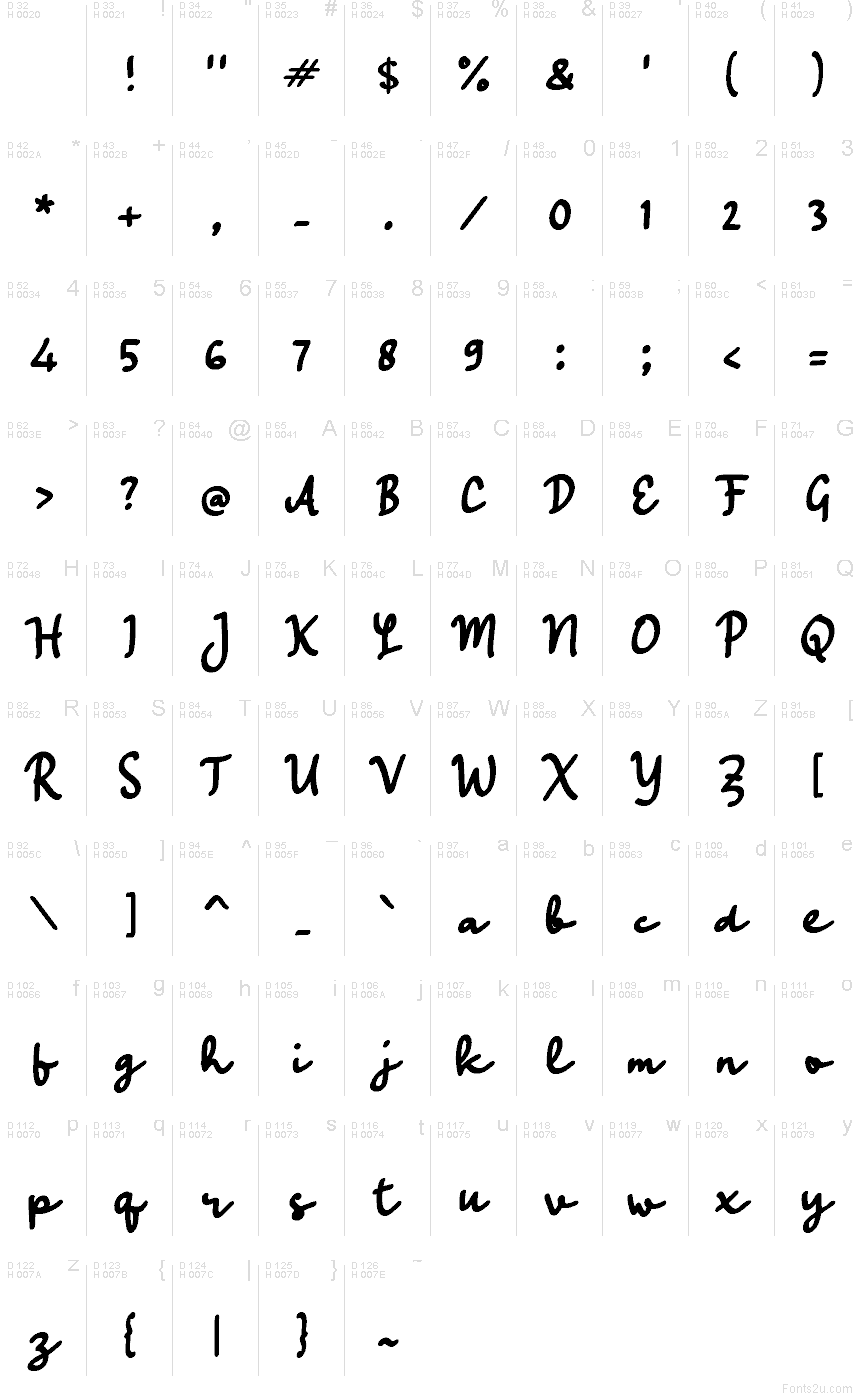
Nesilya
Nesilya font by wep is a free handwritten typeface that captures the feel of quick, confident brush lettering. Its smooth curves, rounded forms, and slightly bouncy baseline give it a warm, conversational tone—like a favorite pen gliding over thick paper. Sturdy strokes keep it easy to read at medium sizes, while the fluid connections create a consistent, inky rhythm that feels personal without getting messy.
Using Nesilya, this free font shines on wedding invitations, logos, social media graphics, product packaging, greeting cards, and branding for lifestyle or boutique businesses. It works beautifully as a bold headline script paired with a clean sans serif for body text. Set it a bit larger than usual to let those looping shapes breathe and show off their friendly character.